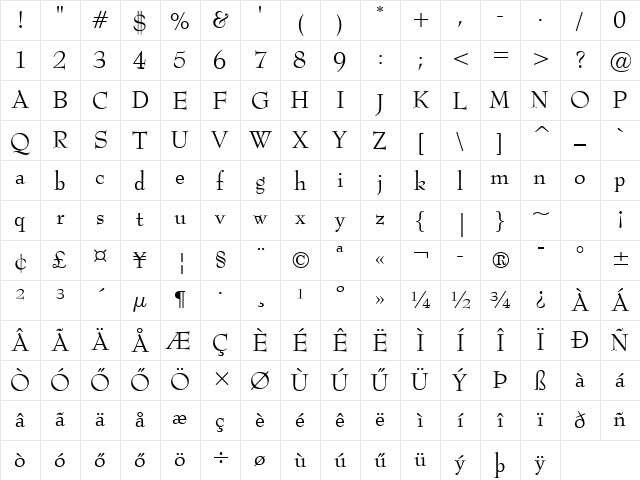
Complete Hu_Berardder Regular glyph index. Displaying only characters natively supported by Hu_Berardder Regular font.
Hu_Berardder is a composed and adaptable typeface that performs quietly and consistently across a wide range of design contexts.